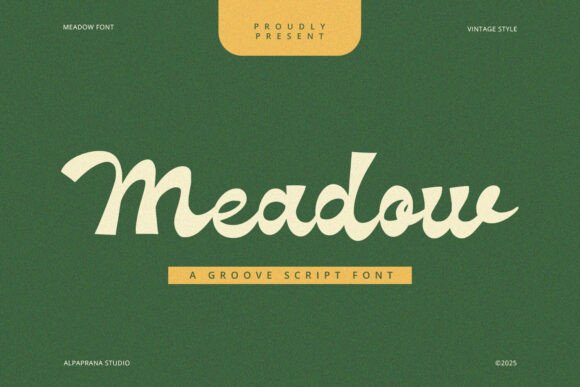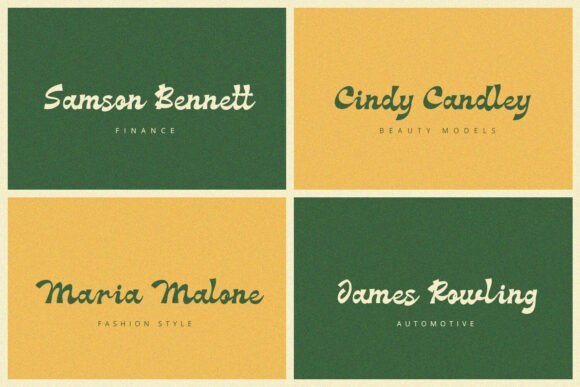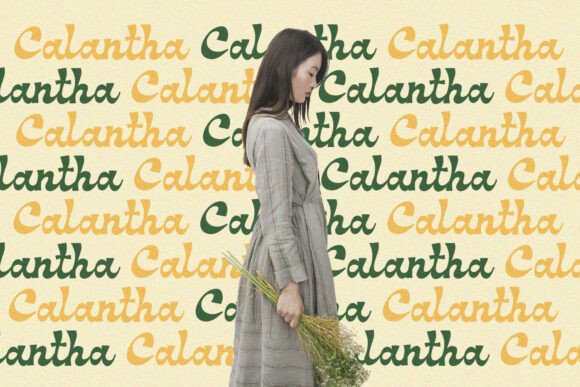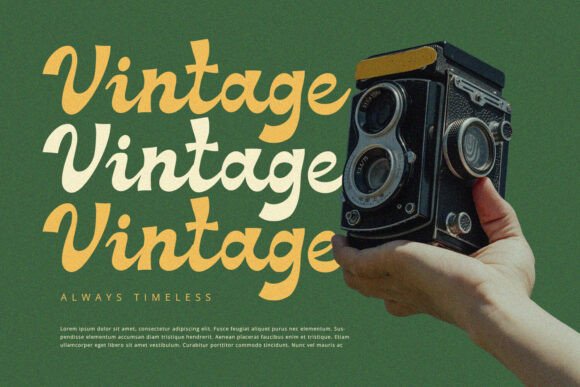
Meadow Font: Retro Script for Branding & Logo Design!
About the Meadow Font
Introducing the Meadow Font, a beautifully crafted typeface designed to elevate your creative projects. Meadow is a groove script font with bold and classic feels. It will be perfectly used for magazines, packaging, posters, shopping bags, t-shirts, book covers, photography, special events and other design project.
Meadow’s bold, classic feel makes it ideal for headlines, short impactful phrases, and branding applications where a touch of vintage elegance is desired. It excels in projects focused on luxury goods, artisan products, or events with a sophisticated atmosphere. Avoid using Meadow for body text or extended paragraphs; its decorative nature hinders readability in smaller sizes or longer passages.
Consider pairing Meadow with a clean sans-serif like Montserrat for a balanced contrast, or a classic serif such as Garamond for a more traditional feel. For a more modern touch, a geometric sans-serif like Futura would create a compelling juxtaposition. These pairings provide readability while allowing Meadow’s bold script to shine.
The font’s core personality is sophisticated yet approachable, lending itself to brands that value both quality and a friendly aesthetic. It’s not suitable for projects requiring a minimalist or highly modern aesthetic.